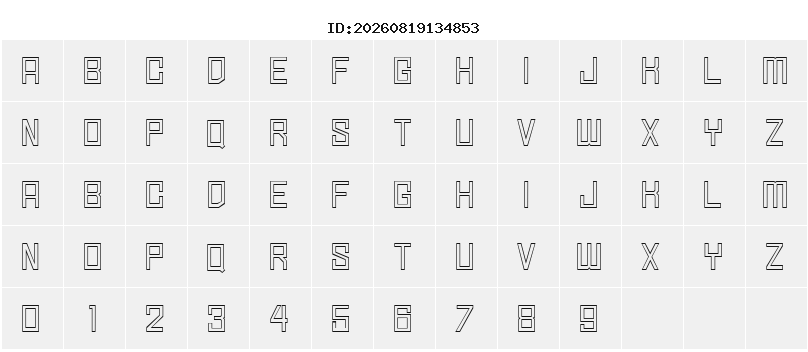
• Font Name: Simply Square Outline JL
• Full Font Name: Simply Square Outline JL
• Designer: Jeffrey N. Levine
• Manufacturer: Jeff's Fonts & Dingbats
• Description: "Simply Square Outline JL".
Simply Square Outline JL.ttf is a modern, elegant sans-serif font designed for ultimate readability and visual harmony. Perfect for branding, headlines, web design, and print materials.